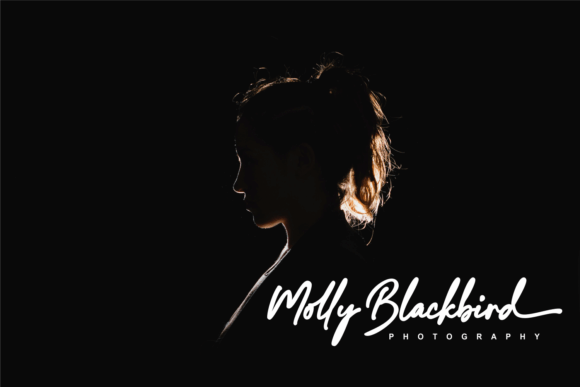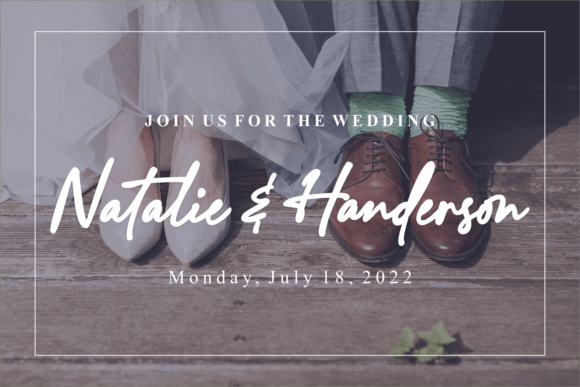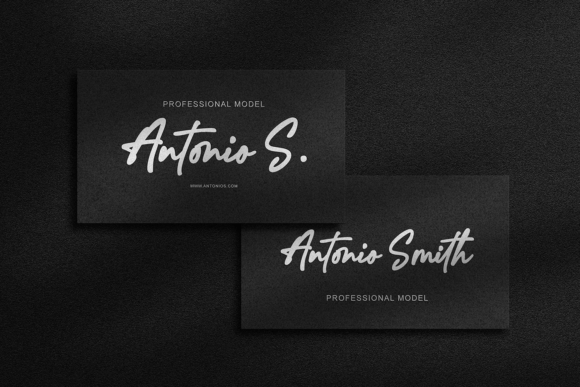
Introduction to Australian Signature Font
Australian Signature is a natural and classy handwritten signature font that was carefully crafted to enhance a variety of projects.
This font can be used to write titles, invitations, letters, and many other types of products Australian Signature is PUA encoded which means you can access all of the glyphs and swashes with ease.